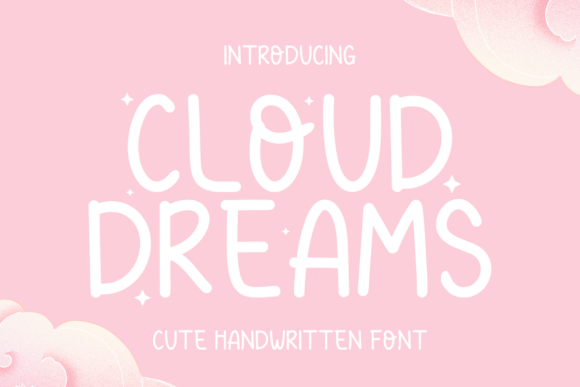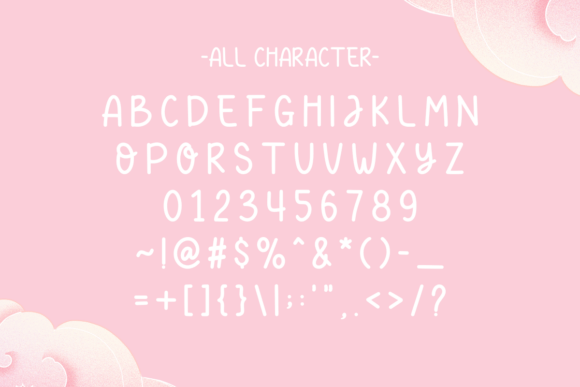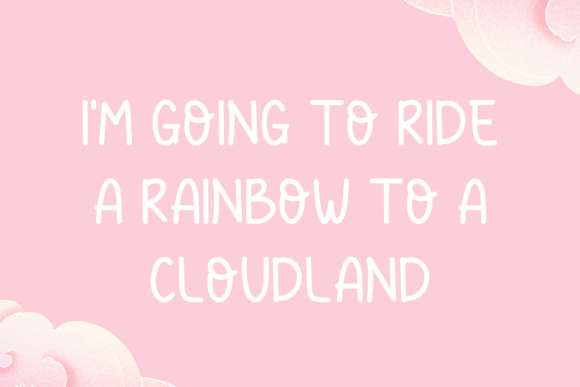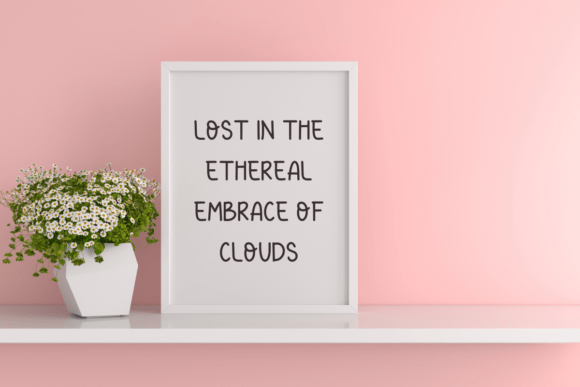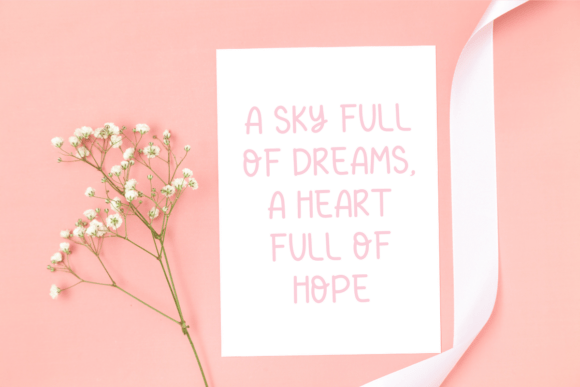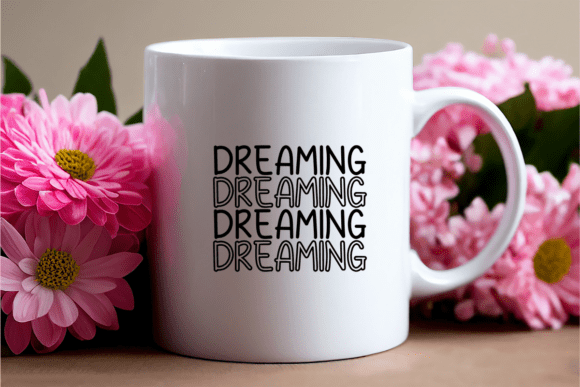
Do you ever find yourself sitting at your desk, surrounded by scraps of paper, glue, and glitter, with a brilliant idea brewing in your mind? The creative juices are flowing, and you can’t wait to bring your vision to life. That’s exactly where the Cloud Dreams Font comes in – a playful handwritten font that’s perfect for crafts, planners, and so much more.
This charming font is ideal for designers, crafters, and makers who want to add a touch of personality to their projects. With its cute and friendly style, Cloud Dreams Font works beautifully for Cricut, sublimation, and creative DIY projects. Whether you’re creating stickers, greeting cards, or planners, this font is sure to elevate your designs and make them stand out.
Cloud Dreams Font Key Features
- Font Family: Cloud Dreams Font is a modern sans-serif font, perfect for digital and print media.
- Character Count: 250+ characters, including uppercase and lowercase letters, numbers, punctuation, and special characters.
- Unique Characteristics: Cloud Dreams Font features a unique blend of geometric and organic shapes, giving it a distinctive and modern look.
- Size: Available in 6 font weights, ranging from Light to Extra Bold, allowing for versatile use in various design applications.
Cloud Dreams Font Review
Overall, I’d say Cloud Dreams Font is a decent choice for a whimsical project, but it’s not without its limitations.
- Unique and playful design – Cloud Dreams Font has a distinct style that’s perfect for projects that need a touch of magic.
- Well-suited for digital use – The font is optimized for screens, making it a great choice for web design, mobile apps, and digital graphics.
- Good for titles and headings – The font’s bold and eye-catching design makes it ideal for titles, headings, and other prominent text elements.
- Limited legibility at small sizes – Cloud Dreams Font can be difficult to read at small font sizes, which may limit its use in certain contexts.
- Not suitable for body text – While the font is great for titles and headings, it’s not ideal for large blocks of body text due to its playful and irregular design.
- No Cyrillic or Greek support – Cloud Dreams Font only supports Latin characters, which may limit its use in multilingual projects.
In conclusion, Cloud Dreams Font is a solid choice for projects that need a touch of whimsy and magic, but it’s not a one-size-fits-all solution. Be mindful of its limitations and use it judiciously to get the most out of this unique font.
For the most effective use of the Cloud Dreams Font, consider the following:
- Pair the font with light and airy imagery to create a whimsical atmosphere.
- Use the font for titles and headings to add visual interest.
- Experiment with different font sizes and styles to create a unique visual hierarchy.
Great Vibes is a modern, elegant script font that is perfect for creating a whimsical and dreamy atmosphere. It is ideal for use in branding, invitations, and other creative projects where a touch of sophistication is needed. Great Vibes is similar to Cloud Dreams Font in its airy and flowing feel, but it has a more refined and polished appearance.
Literata Font
Literata is a beautiful, handwritten font that is reminiscent of classic calligraphy. It is great for use in editorial design, wedding invitations, and other projects where a touch of elegance and sophistication is needed. Literata has a more formal and refined appearance compared to Cloud Dreams Font, making it suitable for more formal or traditional designs.
Carolyna Pro is a modern, elegant script font that is perfect for creating a luxurious and high-end atmosphere. It is ideal for use in branding, packaging, and other creative projects where a touch of sophistication and glamour is needed. Carolyna Pro has a more refined and polished appearance compared to Cloud Dreams Font, making it suitable for high-end designs.